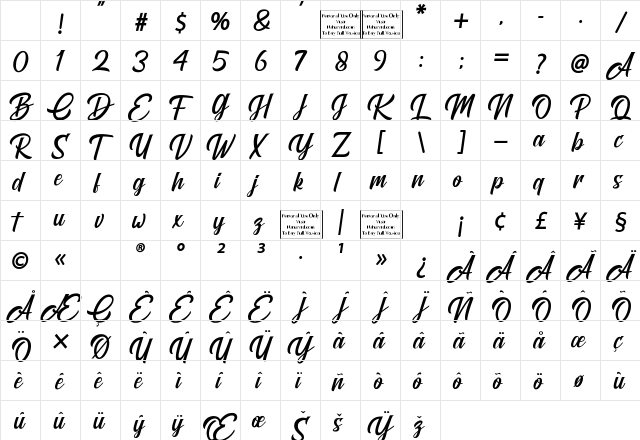
Complete Brightons Regular glyph index. Displaying only characters natively supported by Brightons Regular font.
Brightons is a composed and adaptable typeface that performs quietly and consistently across a wide range of design contexts.